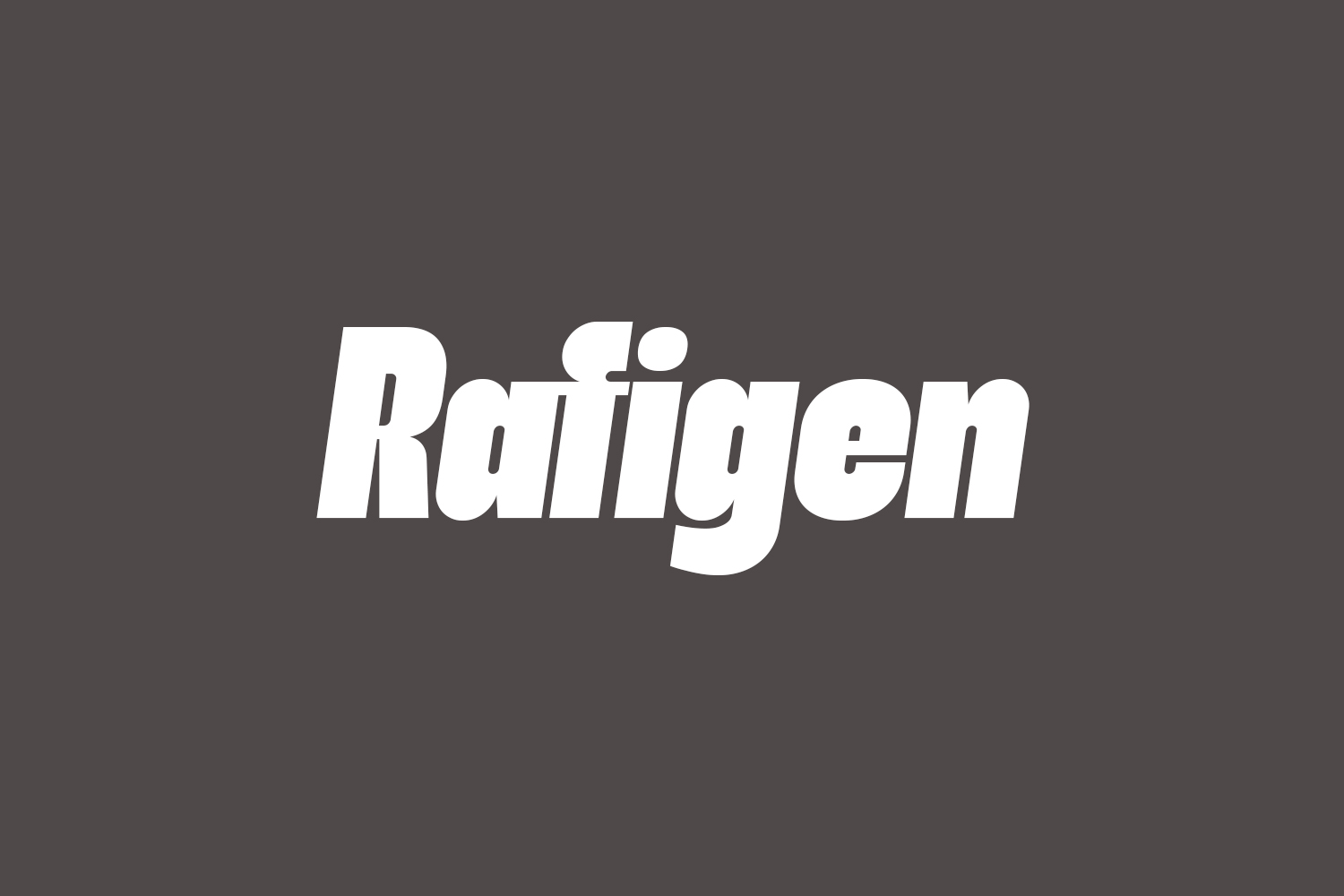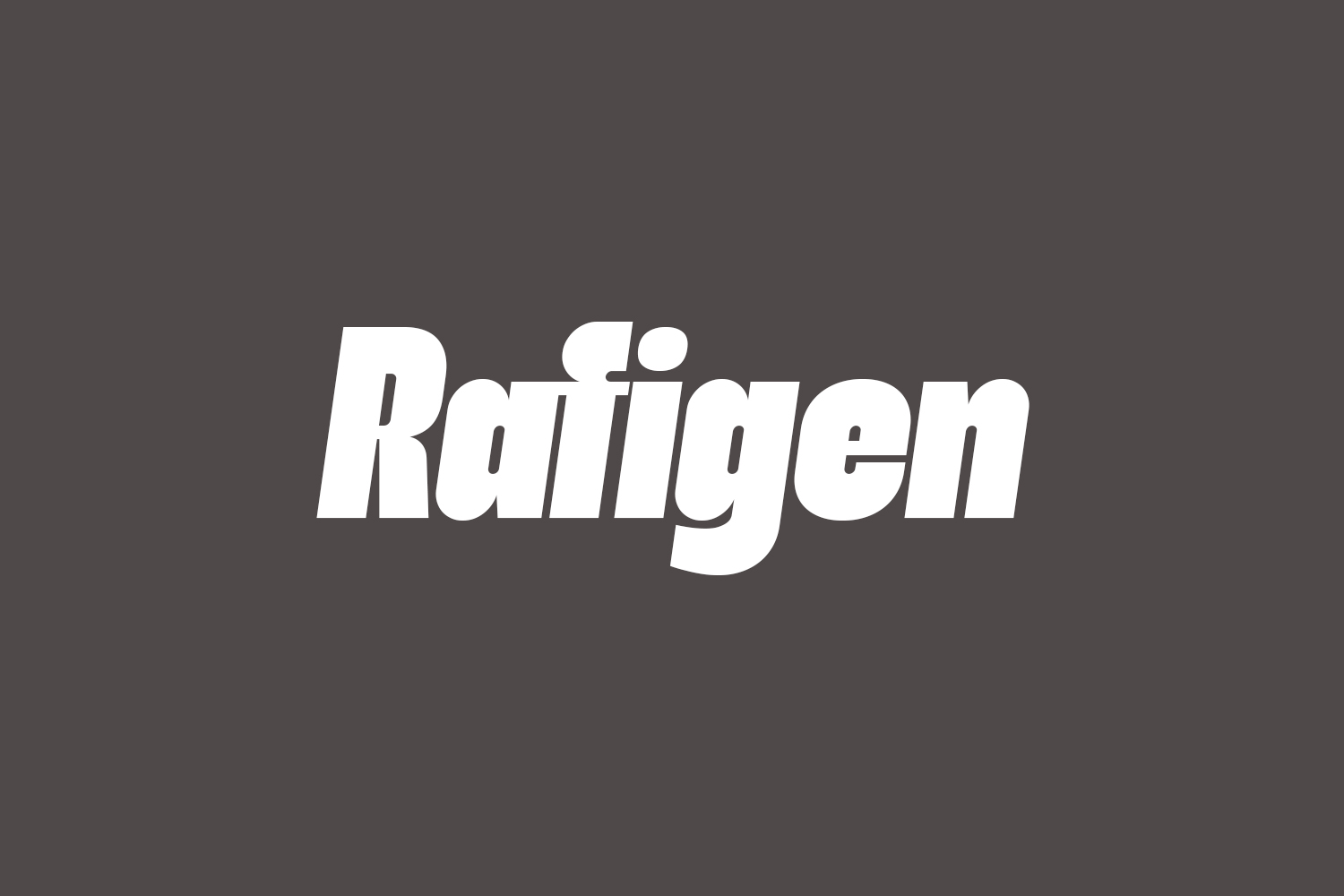
Rafigen Free Font is a thick and playful display typeface. It is a great font that makes it easier for you to create spectacular designs such as branding, film titles, packaging, advertising, posters, and web or app designs. Rafigen Free Font was designed by Surotype is a demo and free for personal use only. Please purchase the full version for commercial use.